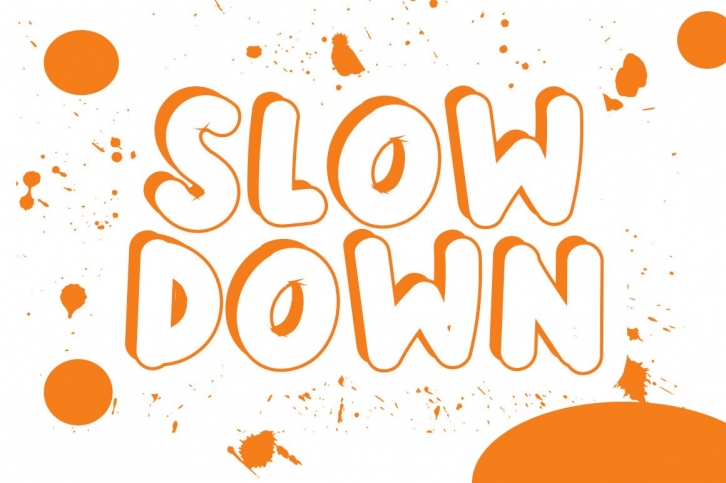
Slow Down is a cool and thick lettered, outlined display font. It embodies playfulness and authenticity and is the perfect choice for any children activity or school project.